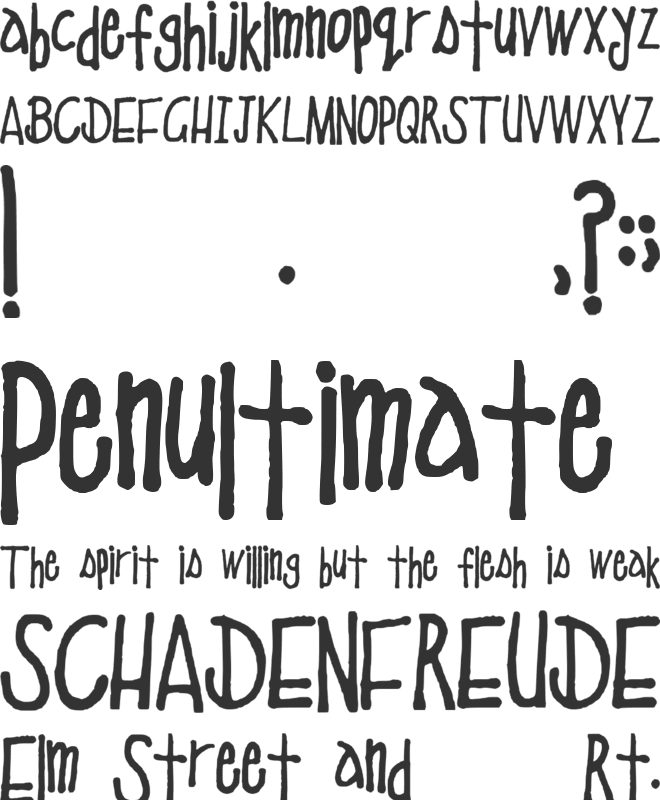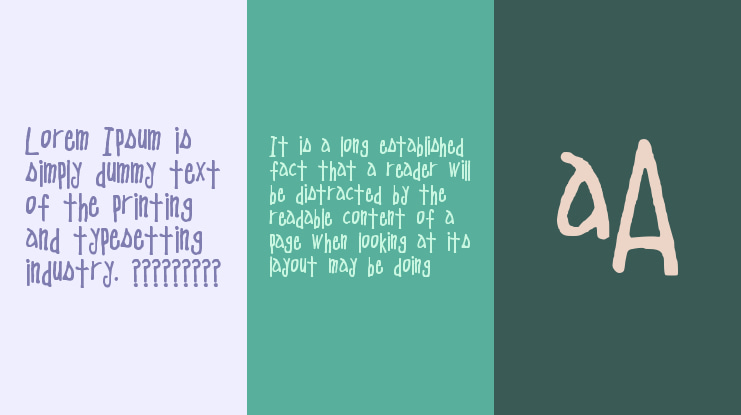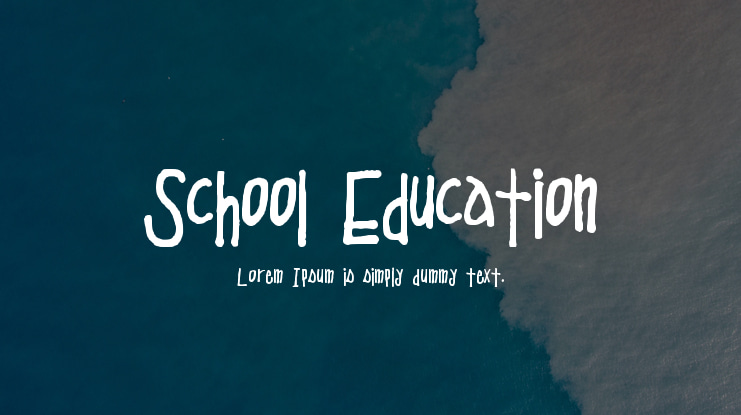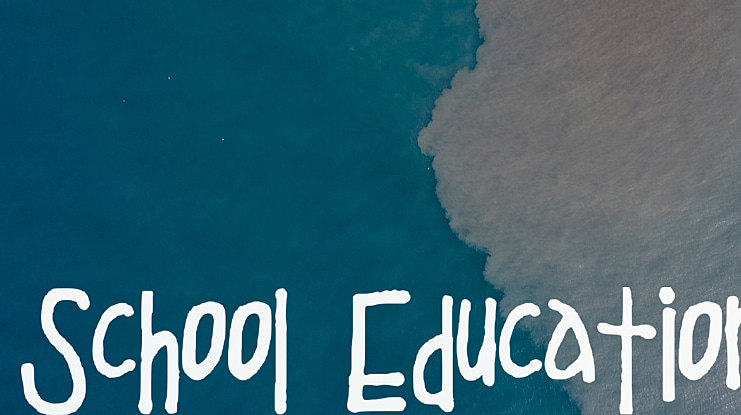
School Education Font
This is a fun font that has an organised feel to it. The image is free to use and is from Pixabay. If you want to use this font Commercially, it is 99c at https://www.creativefabrica.com/designer/shelley-2 Thank you!